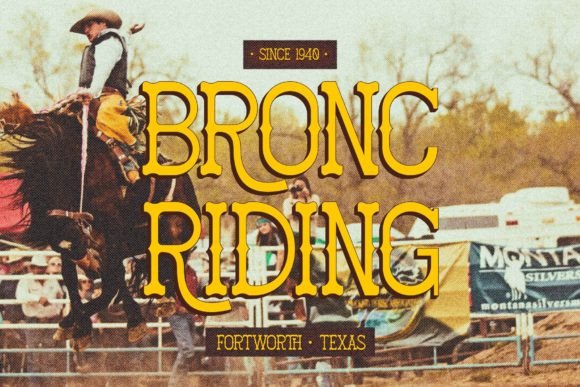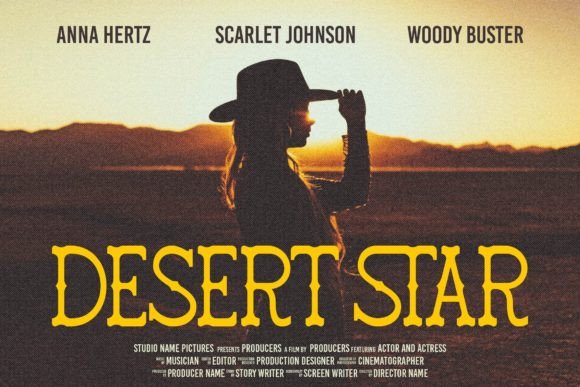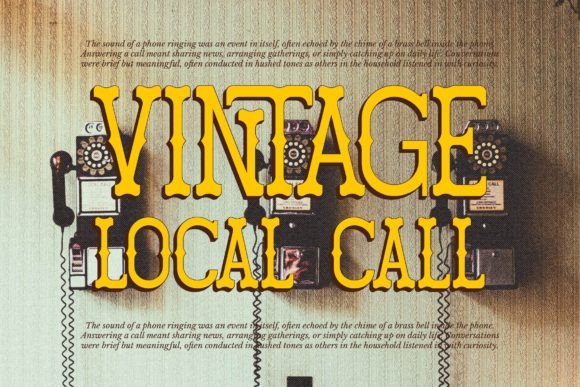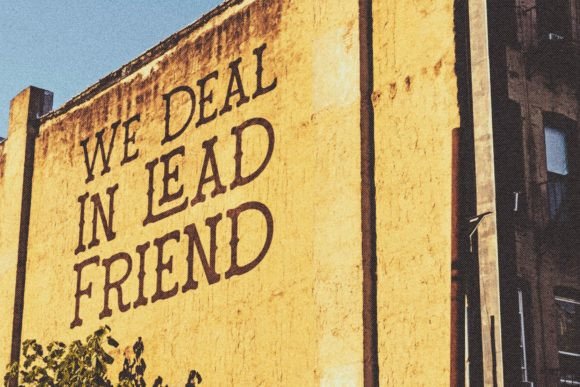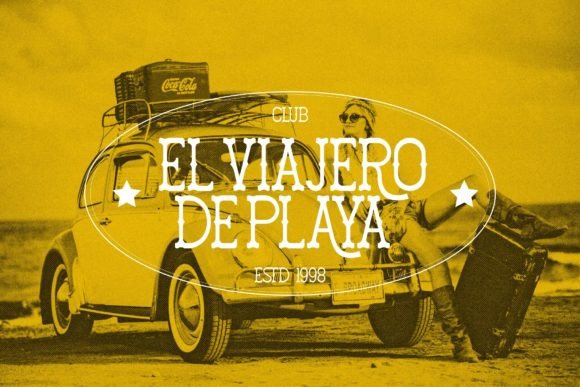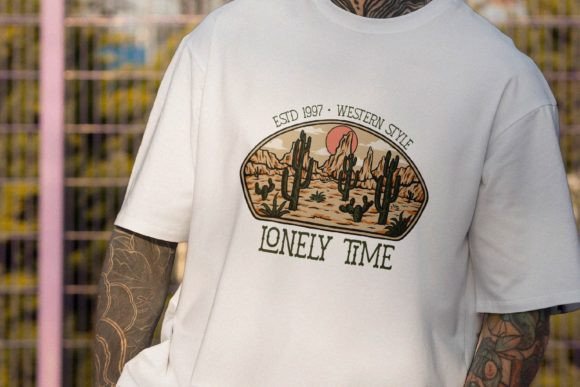
Introducing Fatient Font: A Bold and Stylish Typeface with a Timeless Appeal
In the world of typography, a good font can make all the difference in the success of a design project. For designers and crafters looking for a bold and stylish typeface that can add a touch of retro charm to their work, look no further than Fatient Font. Inspired by classic Western designs, Fatient is a confident and attention-grabbing font that’s perfect for posters, headlines, and any other project that needs a strong visual impact.
The Inspiration Behind Fatient Font
Fatient Font draws its inspiration from the classic Western typography of the past. Its thick, slab serifs give it a strong and confident look that’s reminiscent of the rugged, bold typography often seen in vintage posters and signage. The font’s design is rooted in the traditions of Western typography, with a bold and sturdy appearance that’s perfect for making a statement.
Key Features of Fatient Font
So what sets Fatient Font apart from other typefaces? Here are some of its key features:
- Bold and Stylish: Fatient Font is a bold and stylish typeface that’s designed to grab attention. Its thick, slab serifs give it a strong and confident appearance that’s perfect for posters, headlines, and other high-impact applications.
- Retro Charm: With its classic Western design inspiration, Fatient Font brings a touch of retro charm to any project. Its timeless appeal ensures that it will remain a stylish and relevant choice for years to come.
- Versatile: Despite its bold appearance, Fatient Font is surprisingly versatile. It can be used in a wide range of applications, from posters and headlines to logos and branding materials.
Using Fatient Font in Your Design Projects
So how can you use Fatient Font in your design projects? Here are a few ideas to get you started:
- Posters and Flyers: Fatient Font is perfect for creating eye-catching posters and flyers. Its bold appearance ensures that your message will stand out, even from a distance.
- Headlines and Titles: Use Fatient Font to add a touch of drama and flair to your headlines and titles. Its strong, confident appearance is sure to grab attention and draw the reader in.
- Logos and Branding: Fatient Font can also be used to create bold and memorable logos and branding materials. Its timeless appeal ensures that your brand will look stylish and relevant for years to come.
Tips for Getting the Most Out of Fatient Font
Here are a few tips for getting the most out of Fatient Font:
- Use it sparingly: While Fatient Font is bold and attention-grabbing, it can also be overwhelming if used too much. Use it sparingly to add emphasis and create visual interest.
- Experiment with different sizes: Fatient Font looks great in a wide range of sizes, from large headlines to smaller body text. Experiment with different sizes to find the one that works best for your project.
- Pair it with other fonts: Fatient Font can be paired with a wide range of other fonts to create a unique and stylish look. Try pairing it with a sans-serif font for a bold and modern appearance.
In conclusion, Fatient Font is a bold and stylish typeface that’s perfect for designers and crafters looking to add a touch of retro charm to their work. Its thick, slab serifs give it a strong and confident appearance that’s perfect for grabbing attention in posters, headlines, and other high-impact applications. With its timeless appeal and versatile design, Fatient Font is sure to become a go-to choice for designers and crafters around the world.